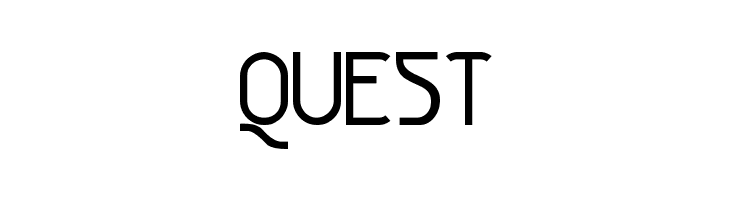
West Djakarta Font
- Font: West Djakarta
( Fonts by Steve Deffeyes - www.deffeyes.com )
A futuristic and geometric font with clean lines and angular shapes.